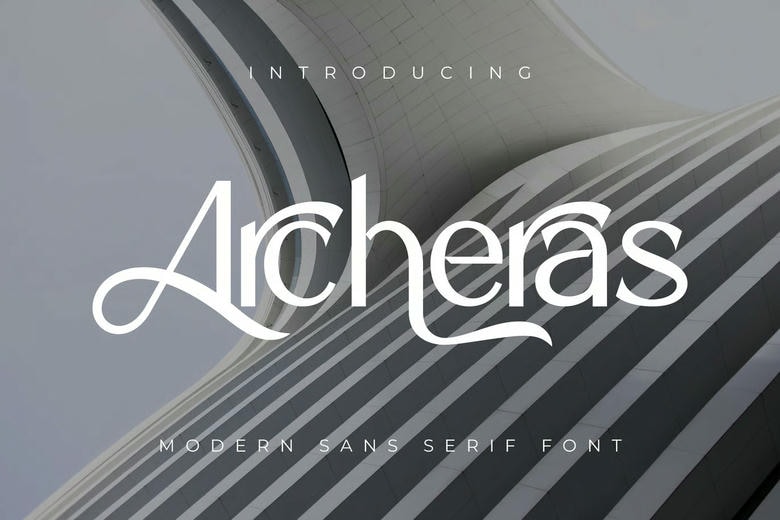
Archeras Font
Archeras Font – Modern Sans Serif Font, from Rishsketch Studios, is a premium Sans Serif Font, perfect for elegant logos, branding, travel promotions, layout magazines, beauty products, product packaging, quotes, or simply as a stylish text overlay onto any background image.
Archeras Sans Serif Font